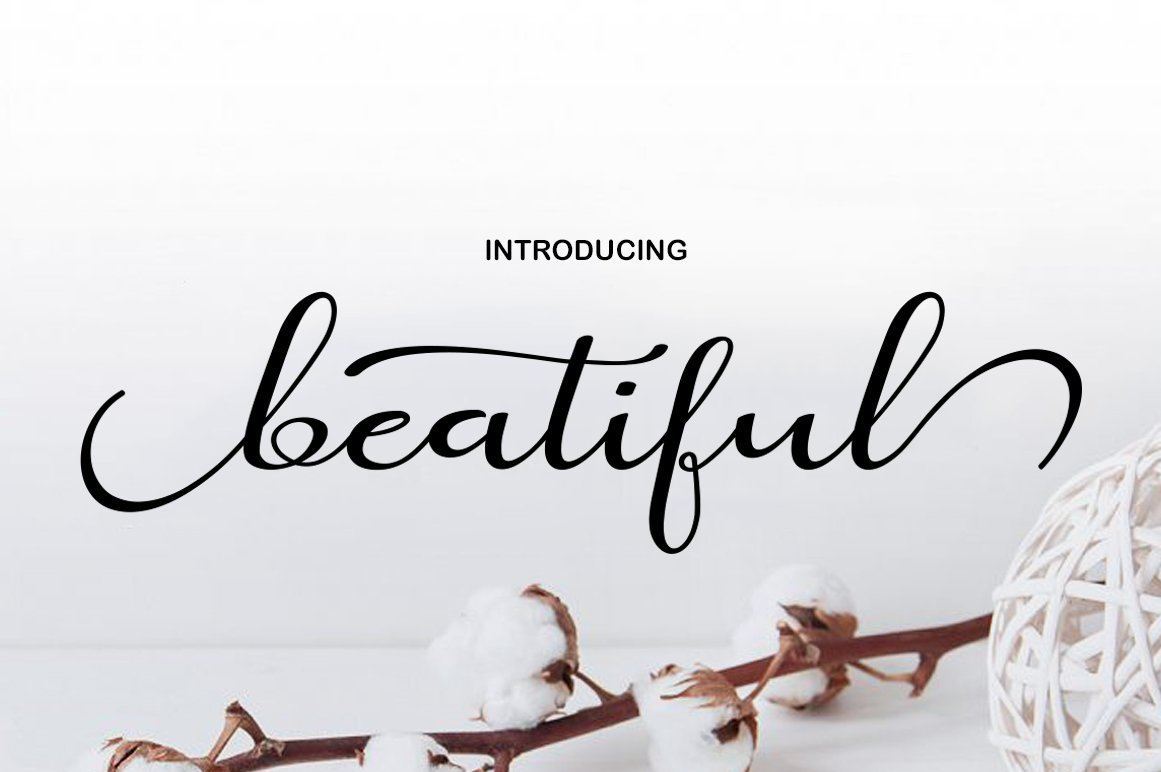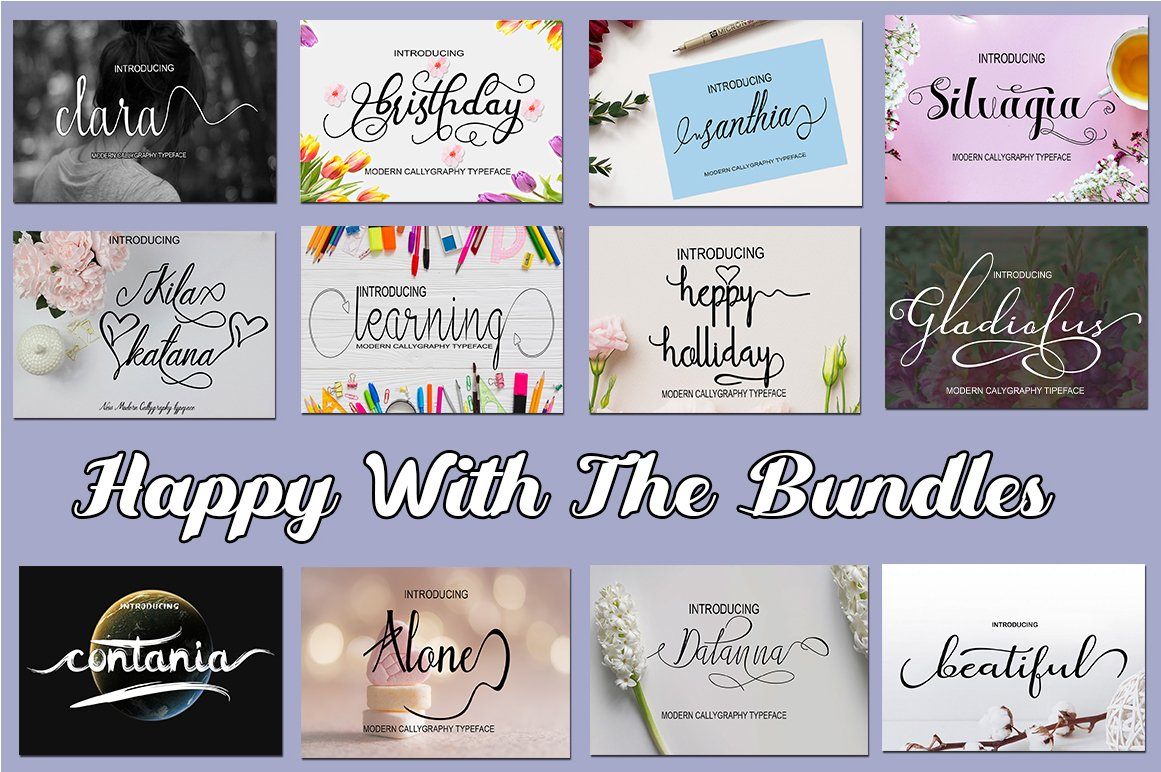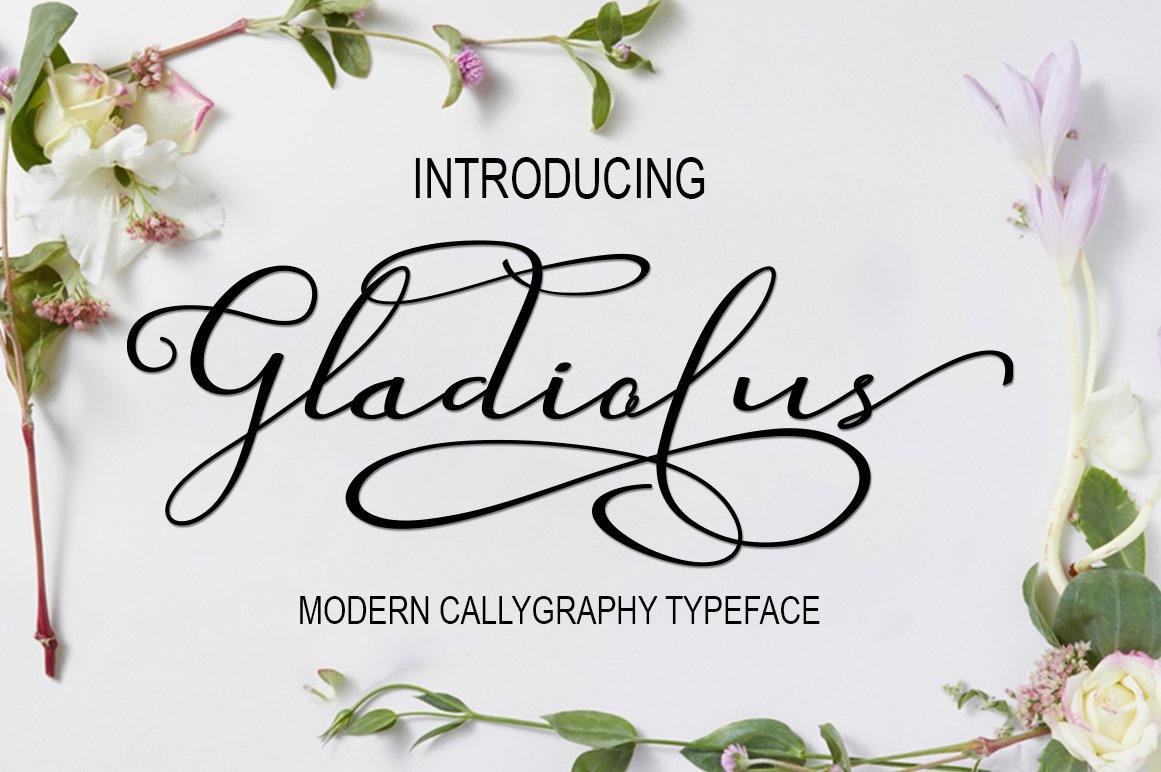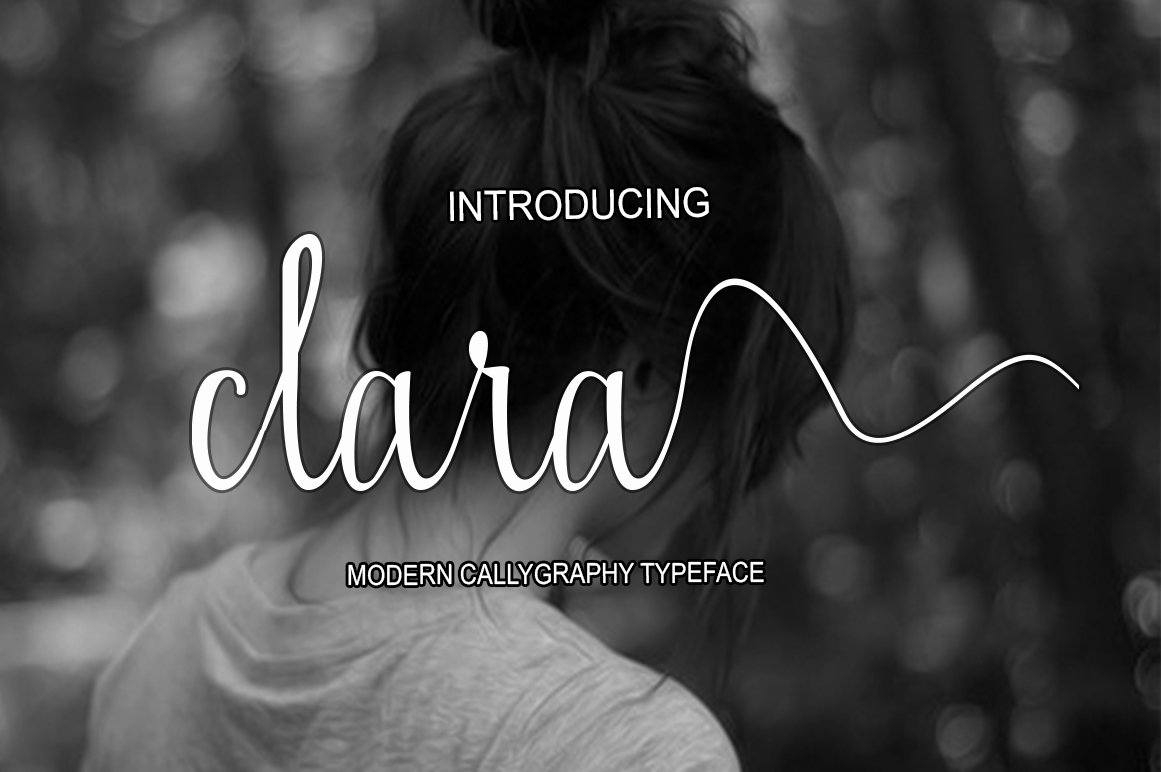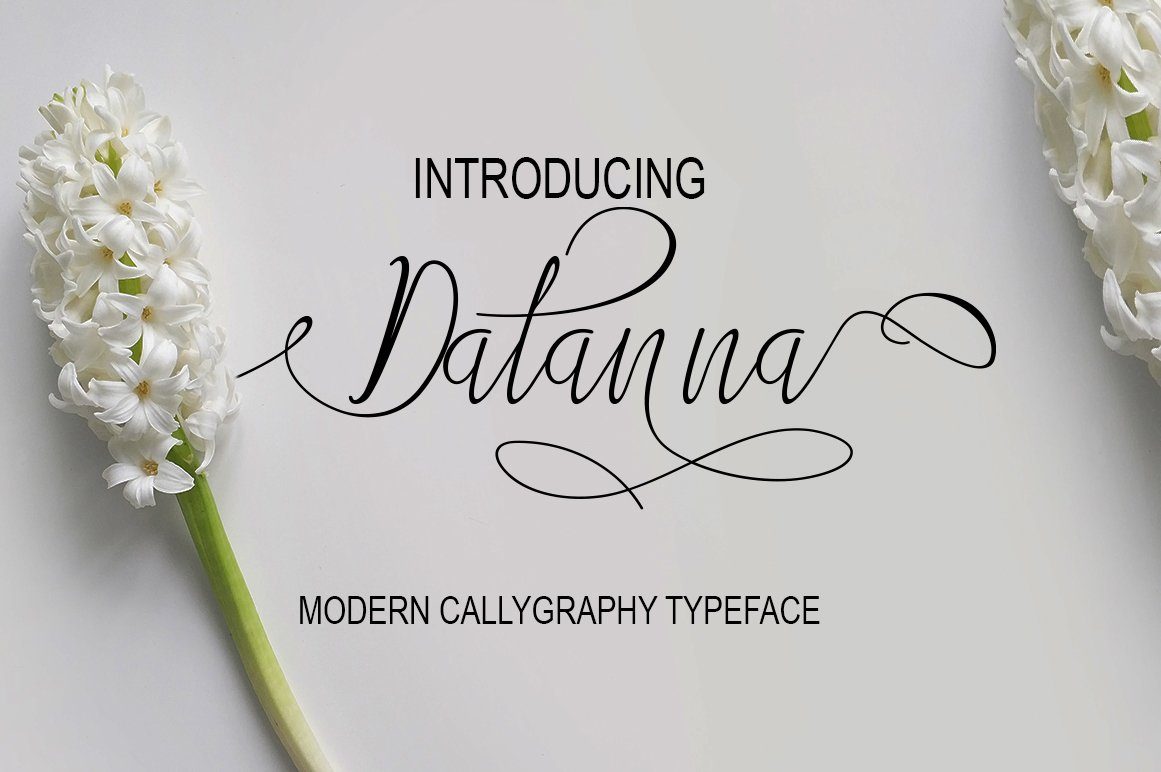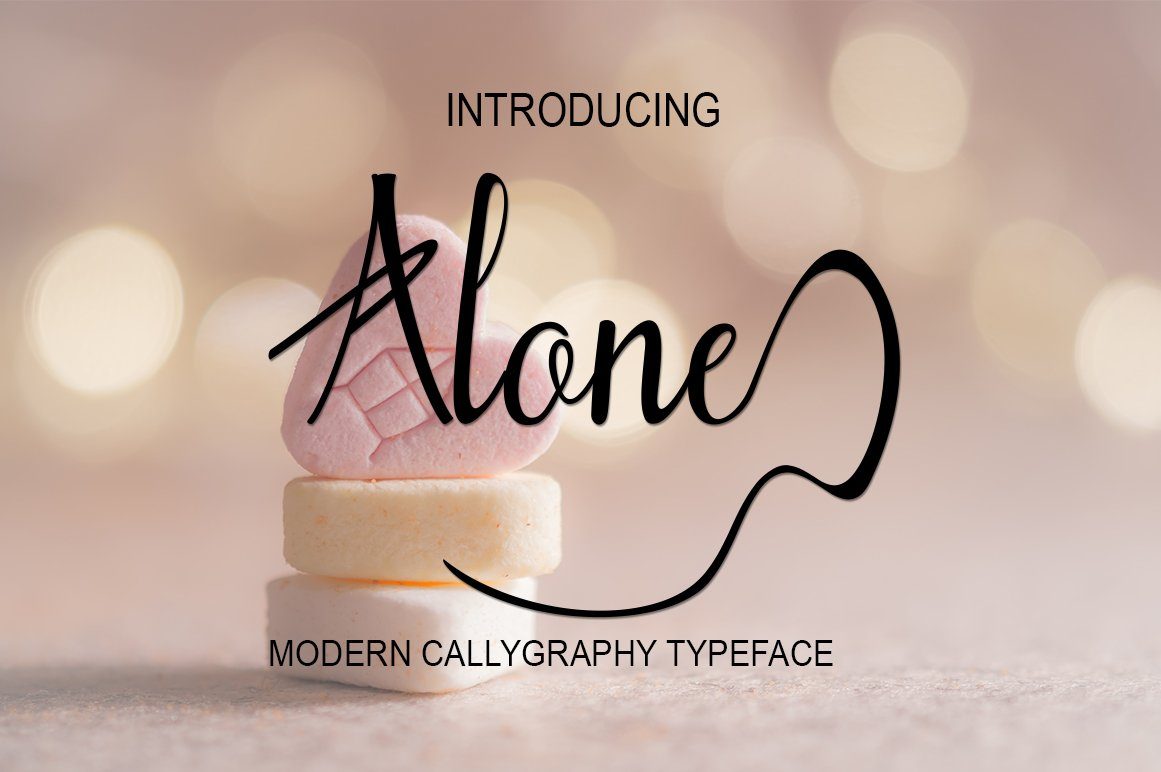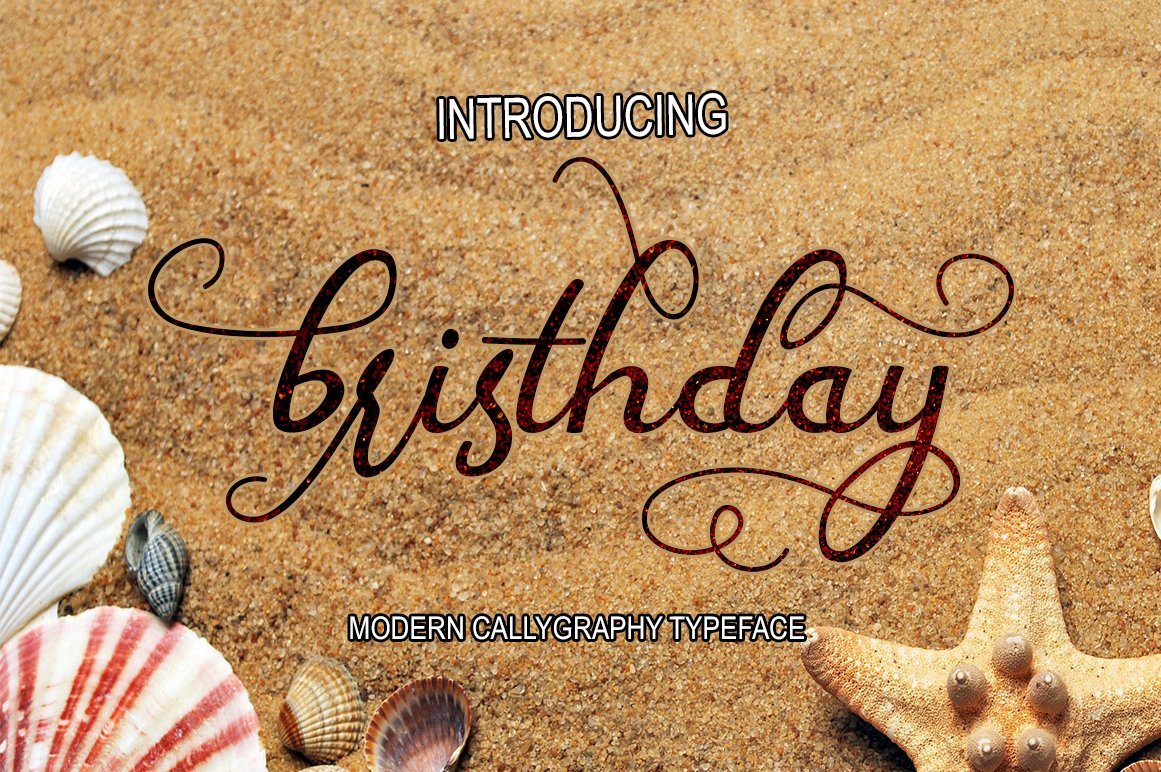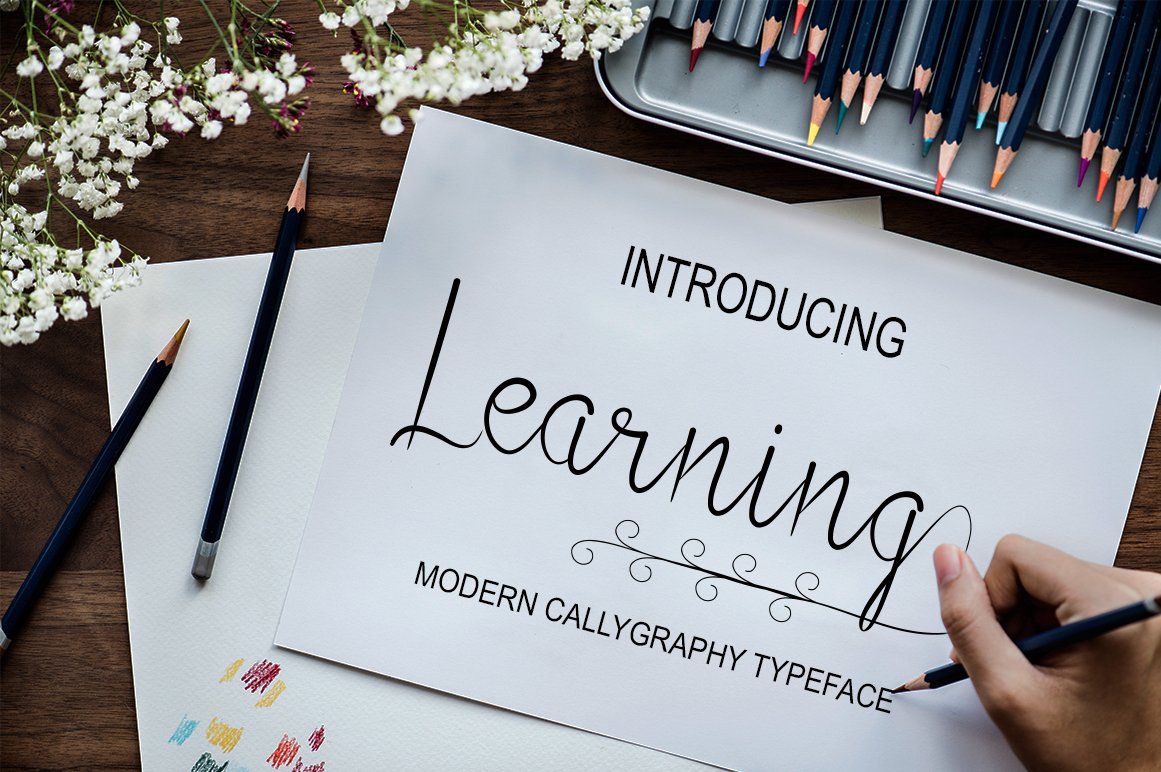
Happy With the Bundle New fresh & modern style with handmade calligraphy, decorative characters and dancing lineage! So wonderful are invitations like greeting cards, branding material, business cards, quotes, posters, and more !! Happy With the Bundle. Alternate characters are divided into several Open Type features such as Swash, Stylistic Sets, Stylistic Alternate, Contextual Alternate. Open Type features are accessible by using Open Type savvy programs such as Adobe Illustrator, Adobe InDesign, Adobe Photoshop Corel Draw X versions, and Microsoft Word. And this font has code PUA unicode (font with special code). So that all alternative characters can be easily accessed by craftsmen or designers. ZIP files include the following: -holliday -bristhday -beatiful -santhia -contania -kila katana -datanna -silvagia -gladiolus -clara -alone -hello learning If you do not have programs that support OpenType features like Adobe Illustrator and CorelDraw X Versions, you can access all alternative flying machines using Font Book (Mac) or Character Map (Windows) I Want To Introduce New Fonts Happy With the Bundle New fresh & modern style with handmade calligraphy, decorative characters and dancing lineage! So wonderful are invitations like greeting cards, branding material, business cards, quotes, posters, and more !! Happy With the Bundle. Alternate characters are divided into several Open Type features such as Swash, Stylistic Sets, Stylistic Alternate, Contextual Alternate. Open Type features are accessible by using Open Type savvy programs such as Adobe Illustrator, Adobe InDesign, Adobe Photoshop Corel Draw X versions, and Microsoft Word. And this font has code PUA unicode (font with special code). So that all alternative characters can be easily accessed by craftsmen or designers. Happy With the Bundle If you do not have programs that support OpenType features like Adobe Illustrator and CorelDraw X Versions, you can access all alternative flying machines using Font Book (Mac) or Character Map (Windows)